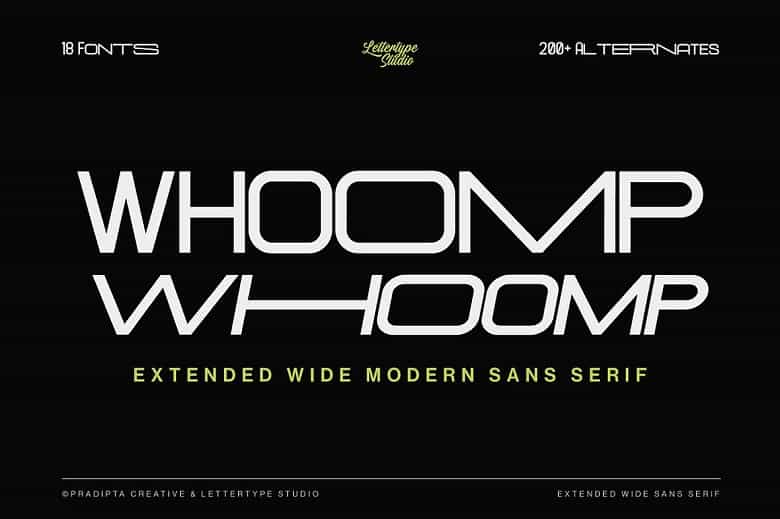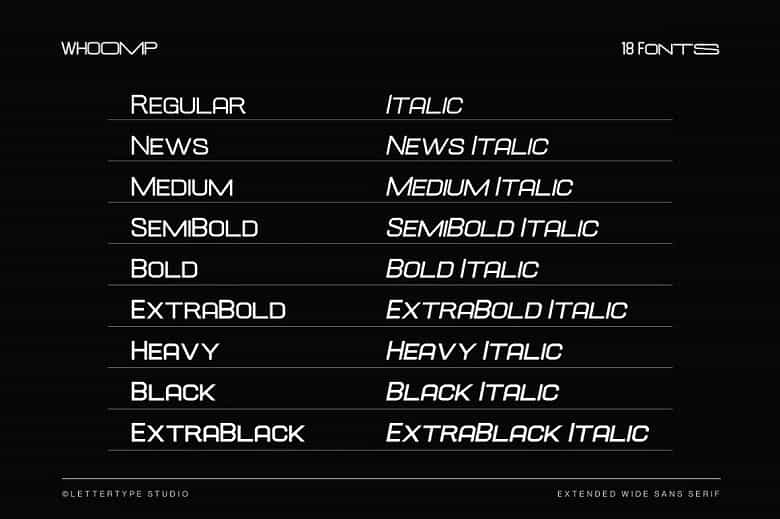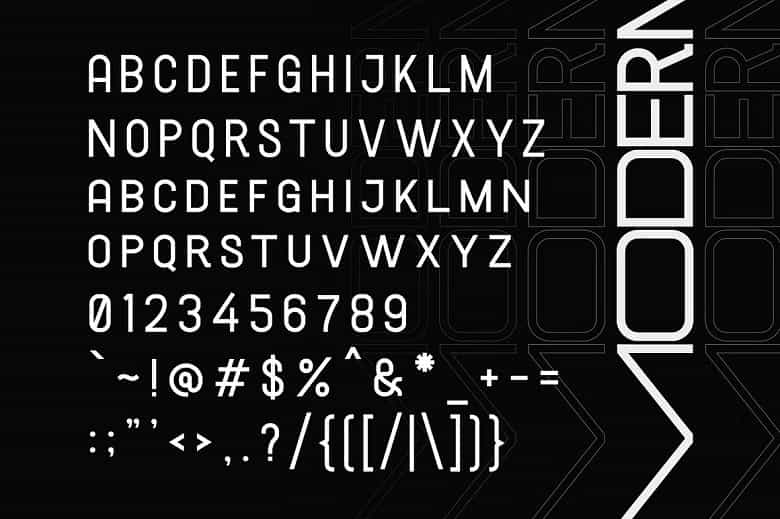
Whoomp is the name of this extended wide modern sans serif font with urban influence and individuality in its letter forms. Hello to the new extended wide sans-serif font with more than a hundred and one of the glyphs for the new levels of the font adaptation and a freedom of creativity.